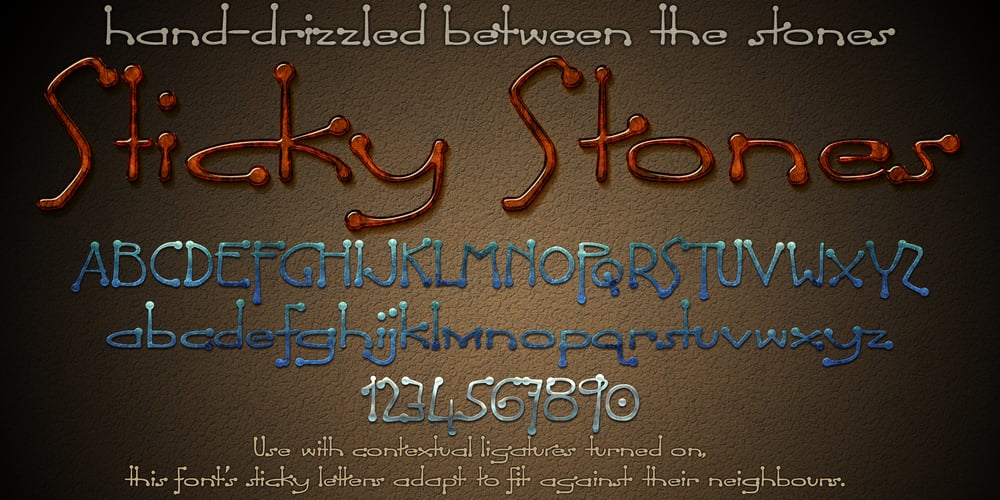
DT Sticky Stones
DT Sticky Stones font
DT Sticky Stones Font Family was designed by Scott Spensley and published by Dragon Tongue Foundry. DT Sticky Stones contains 1 styles and family package options. Inspired by early cool cartoon fonts, early rock and hippie posters, I created the casual ‘DT Stoner Toon’ font.Then by adding strategic dots to add a little more quirkiness to the mix, I came up with this organic ‘DT Sticky Stones’ font.Please use with contextual ligatures turned on when possible. These letters like to adapt to their neighbours.